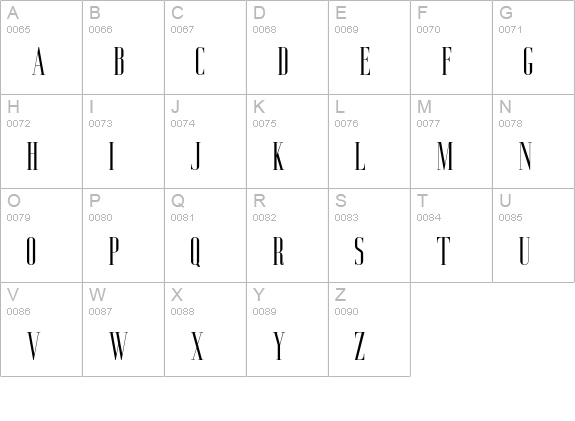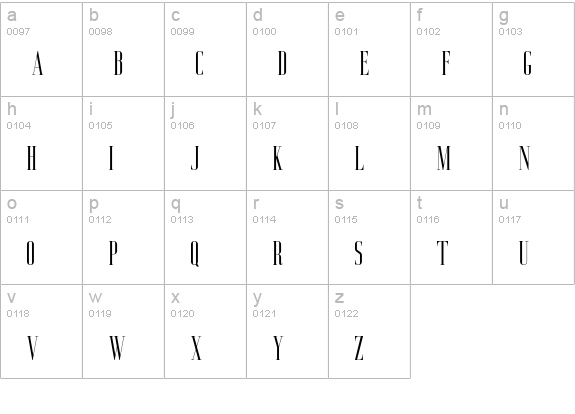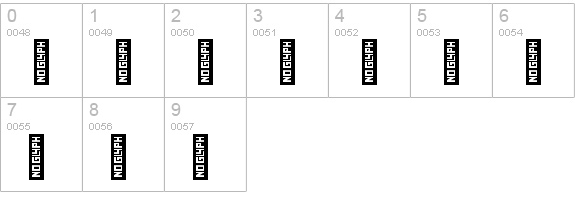
aguero serif Font Details
aguero serif is a demo font in the General > Serif category, designed by craftsupplyco. It has been downloaded 33 times and is available for Windows, Mac and Linux.
Aguero Serif is a timeless and elegant font that exudes sophistication and class. Its sharp serifs and clean lines make it perfect for luxury branding, editorial design, and formal invitations. The versatility of Aguero Serif allows it to be used for both titles and body text, adding a touch of refinement to any project.